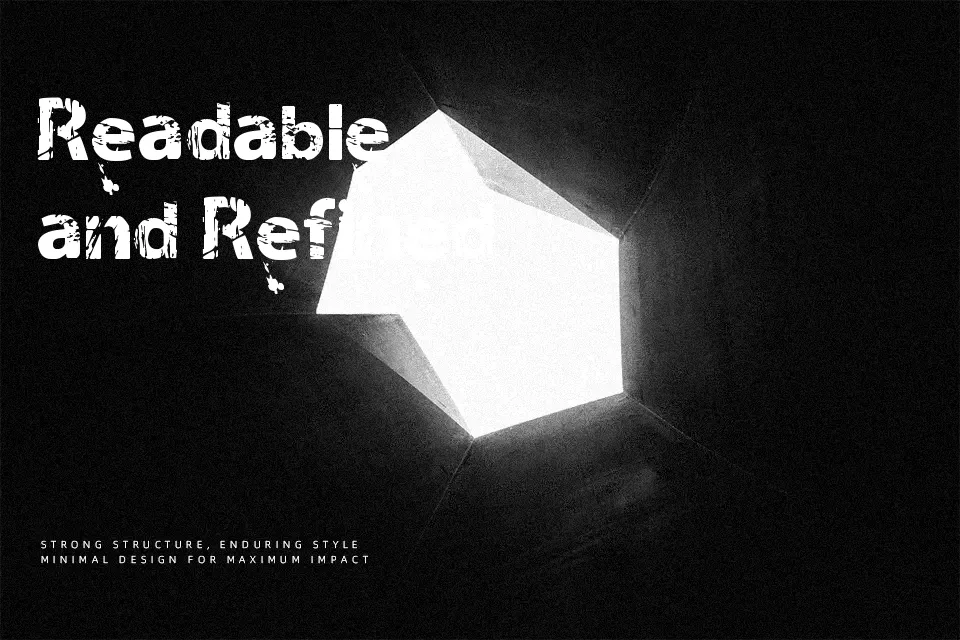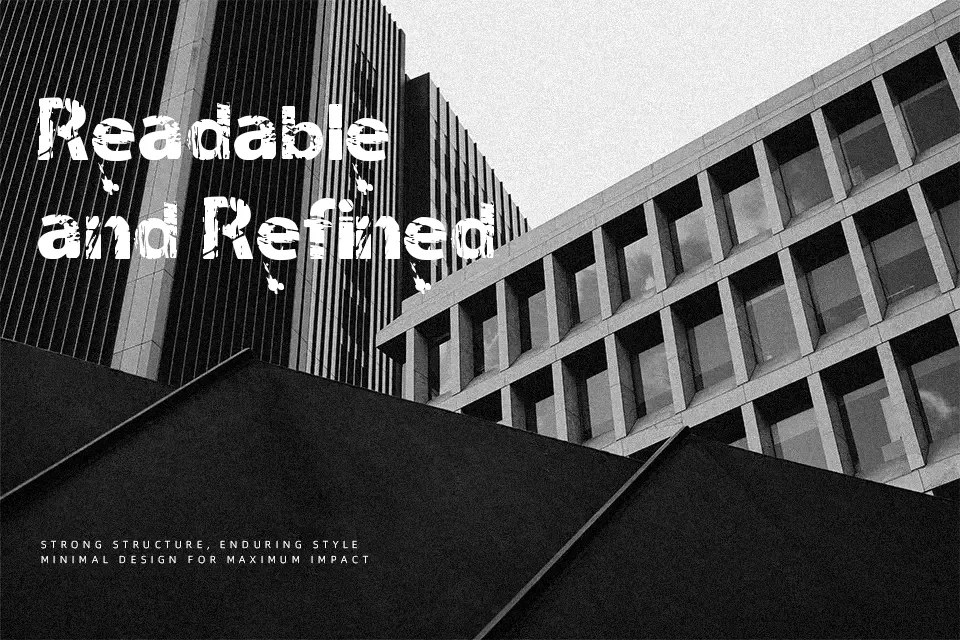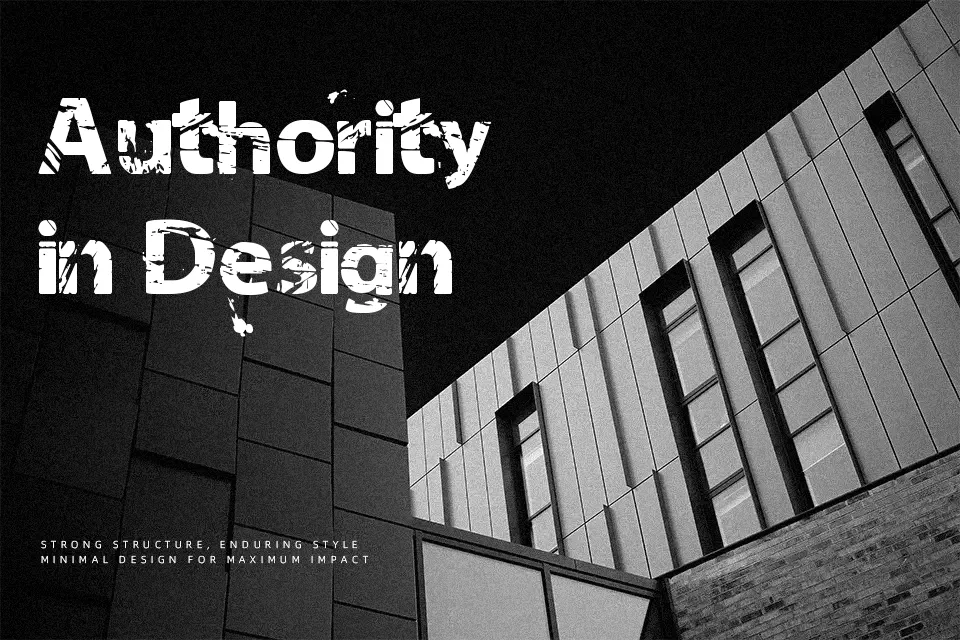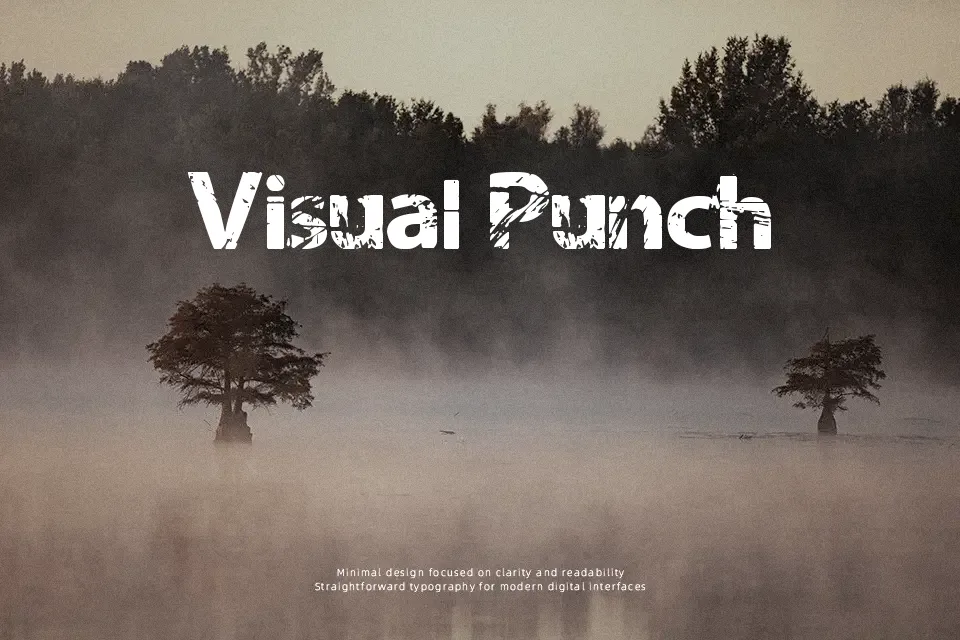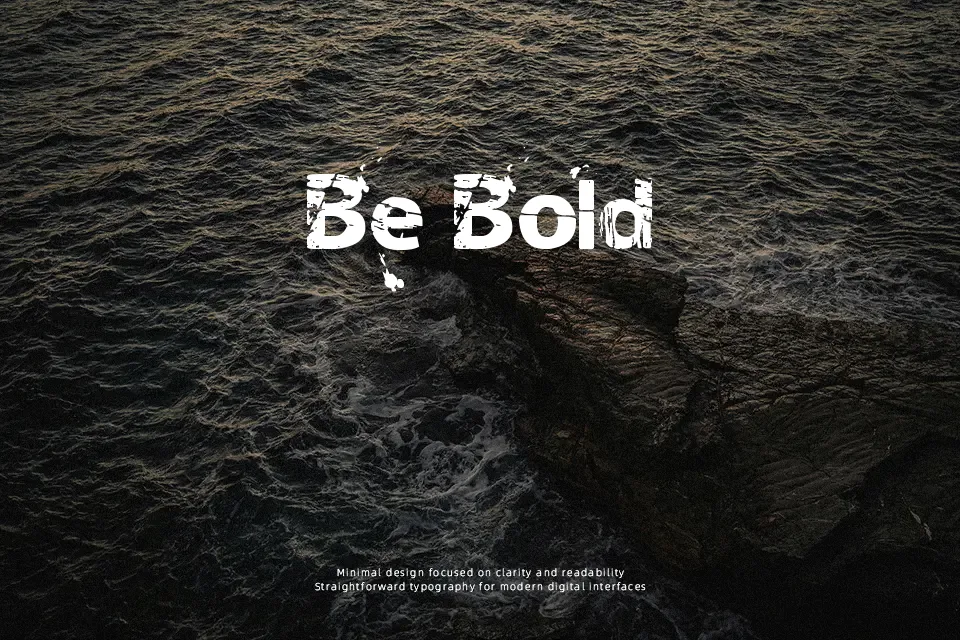
Neo Trash Font
Designed by Milabrya
Neo Trash presents a distressed, decorative construction where letterforms appear worn, cracked, and irregular rather than clean or geometric. Stroke weight varies noticeably across characters, giving the alphabet a rough, damaged texture instead of consistent contrast. Spacing feels loose and uneven, which suits short bursts of text more than continuous reading. Uppercase shapes retain enough structure to stay recognizable at large sizes, though the erosion effect softens precise edges. At smaller sizes, the broken texture competes with letter recognition, so clarity drops quickly outside headline use. The overall look leans toward grunge and punk aesthetics rather than a refined or corporate feel. It reads best as a bold, single-word statement rather than a sentence-level typeface. The rough terminals and inconsistent stroke widths make it expressive but not dependable for detailed information. Designers working on distressed visual themes will find the texture useful, while anyone needing clean legibility should look elsewhere.
Best For: punk gig posters, grunge band merchandise, distressed logo lockups, skate or streetwear graphic titles
Not Ideal For: long paragraph text, small interface labels, corporate reports, legal documents
Perfect for advertising, branding, and headline, with a bold and decorative style.